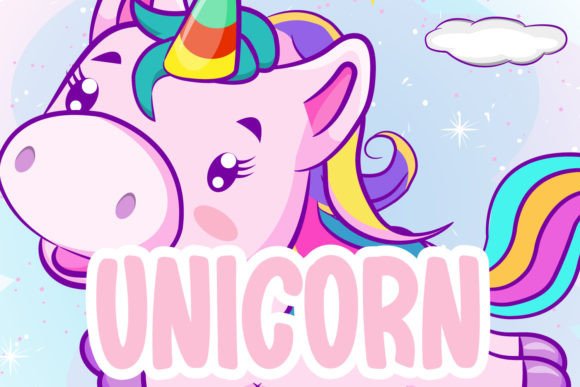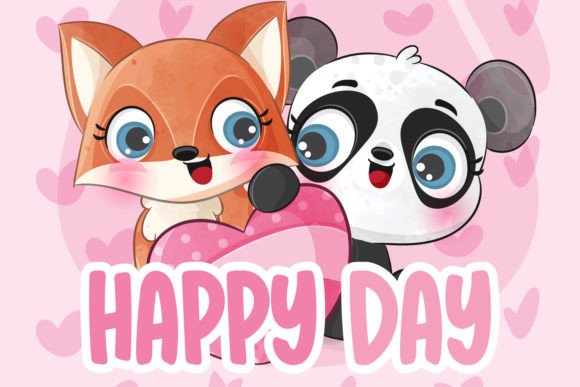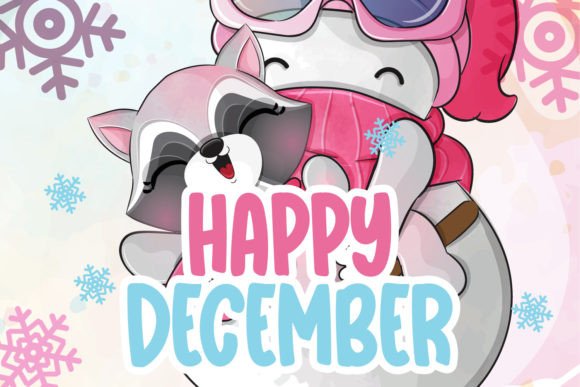
The Magic of Bright Wave Font: Elevate Your Designs with Whimsy
Do you ever have those moments where you’re brainstorming ideas, and suddenly, a burst of creativity strikes? The room fills with excitement, and your imagination runs wild. That’s exactly what happened when I stumbled upon the enchanting Bright Wave Font. Its playful and magical aura captured my heart, and I knew I had to share it with fellow designers.
As a display font, Bright Wave Font is perfect for adding a touch of whimsy to your projects. Its quirky charm will brighten up even the most mundane designs, making them truly unforgettable. Whether you’re working on a children’s book, a fashion brand, or a website, this font is sure to bring a smile to your face and your clients’. With its versatility and uniqueness, Bright Wave Font is an invaluable addition to any designer’s toolkit.
Bright Wave Font Key Features
- Font Family: Bright Wave Font is available in 6 different font families, each with its unique style and character.
- Character Count: The font family includes over 1,000 characters, including uppercase and lowercase letters, numbers, punctuation, and special characters.
- Unique Characteristics: Bright Wave Font features a unique wave-like design element that adds a dynamic touch to any text, making it perfect for creative and modern designs.
Review of Bright Wave Font
Overall, I’m quite impressed with Bright Wave Font. It has a modern and energetic vibe that can be perfect for a wide range of applications.
- ✨ Unique and modern design: Bright Wave Font has a distinctive look that’s sure to catch attention.
- ✨ High legibility: The font is well-designed for digital use, making it easy to read even at smaller sizes.
- ✨ Versatility: It can be used for both headings and body text, making it a great option for projects with varying typography needs.
- ⚠️ Limited character set: The font only comes with uppercase and lowercase letters, as well as some basic punctuation marks. This might limit its use for more complex applications.
- ⚠️ Not suitable for body text in print: While the font looks great on screen, it might be difficult to read in print due to its digital origins.
While Bright Wave Font has some limitations, its unique design and high legibility make it a great option for many projects. It’s perfect for digital applications, such as websites, social media, and mobile apps, where its modern and energetic vibe can really shine.
For the most striking results, use Bright Wave Font in bold or italic styles to add emphasis.
- Headings and titles in marketing materials.
- Quotes and captions in social media graphics.
- Typography-based designs in posters and flyers.